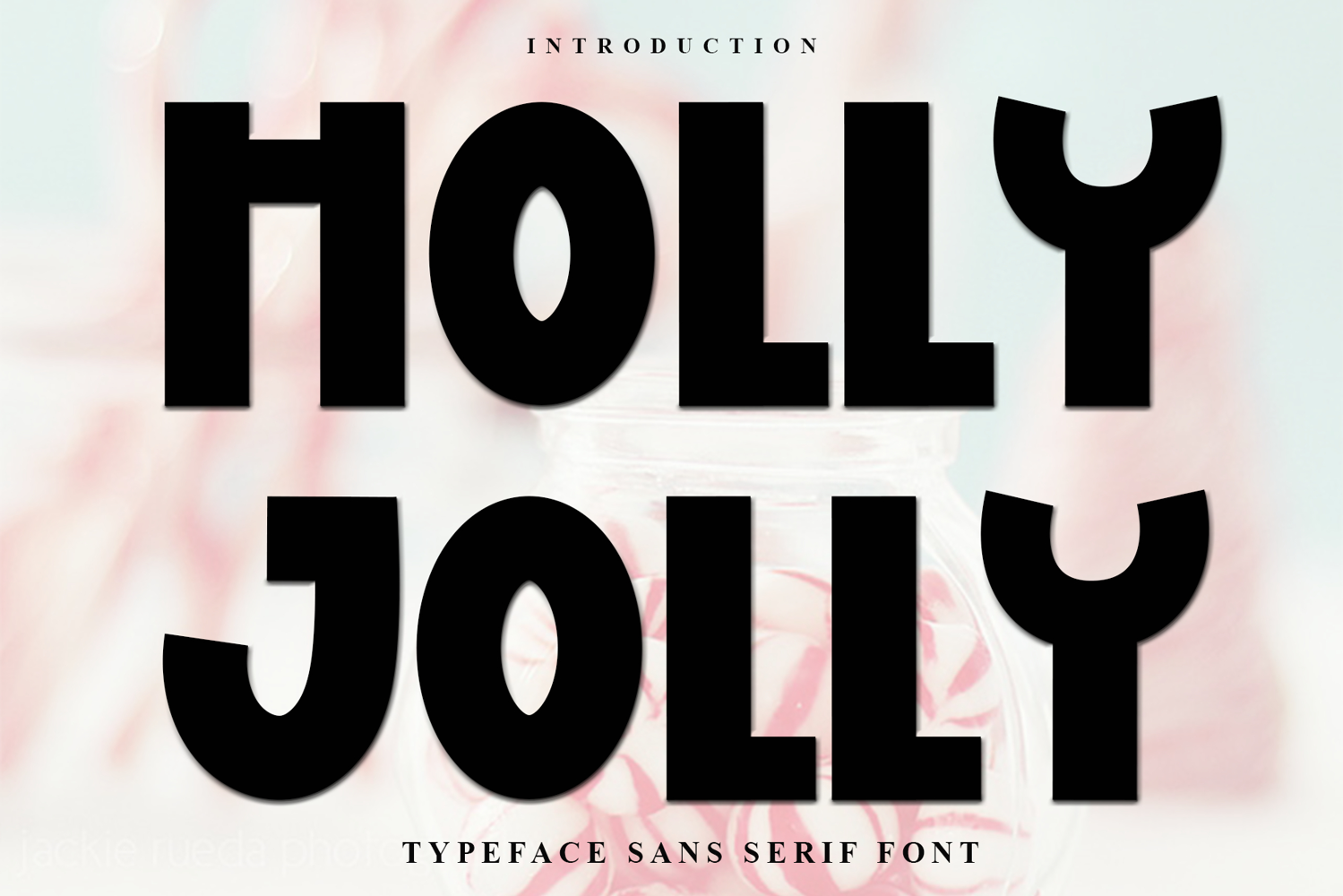
Holly Jolly
Holly Jolly is a beautiful and eye-catching font designed with a soft, unique touch. Its distinctive strokes give it a special character, making it meaningful and versatile for future use. With various characters, it’s perfect for design projects, crafts, and other creative works.